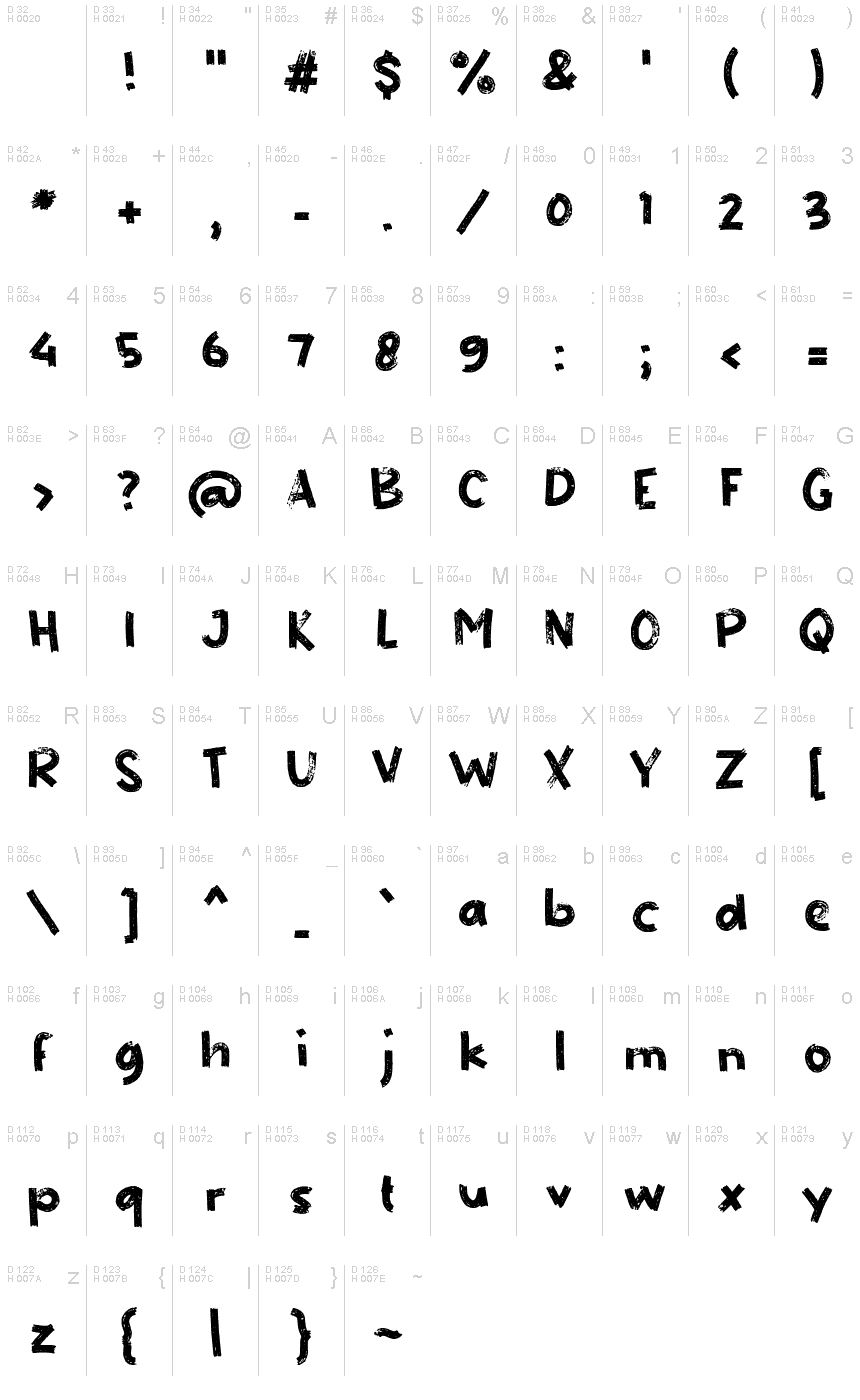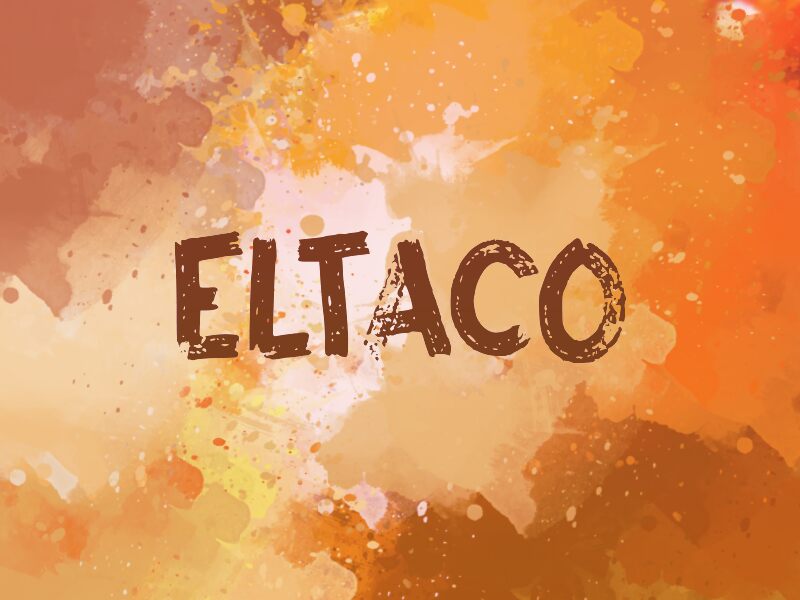
Eltaco
Eltaco, a captivating brush font designed by wep, blends elegance with boldness. Its striking brush strokes exude confidence and creativity, making it perfect for projects that demand attention. With its versatile style, Eltaco is ideal for eye-catching logos and branding materials, adding a touch of modernity and sophistication to websites and social media graphics. Whether it's fashion campaigns or artistic portfolios, this bold typeface effortlessly elevates any design project to new heights. Let Eltaco's unique brush font breathe life into your creations and leave a lasting impression on your audience.